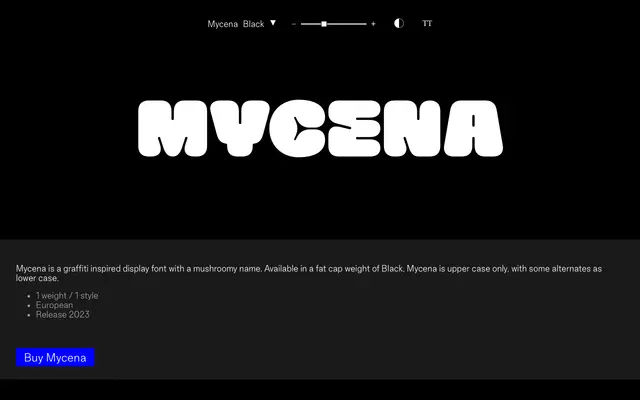
Mycena
Good Type Foundry · 2023
A graffiti-inspired fat cap display face released in a single Black weight, uppercase only, with alternate glyphs mapped to lowercase.
Drawn from graffiti lettering traditions, Mycena offers a fat cap Black weight suited to posters, logotypes and headline work where bold personality is needed. The character set is uppercase only, with 26 alternate glyphs accessible via the lowercase slots and broad European accent coverage across 172 accented characters. A single-style release with a clear scope and no pretension to versatility.
Mycena is explicitly described as graffiti-inspired and is upper case only in a single Black weight, placing it firmly in the display category with a graffiti subcategory.